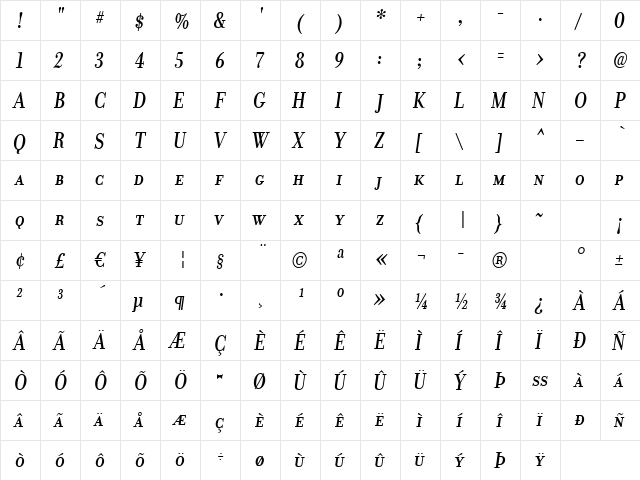
Donatora Medium SC Italic Font Preview
Donatora Medium SC Italic
Donatora Medium SC Italic Font Details
Design Context for Donatora Medium SC Typeface
Donatora Medium SC takes a measured approach to typography — its balanced proportions and neutral character make it a reliable workhorse for both digital and print work. The slanted form adds forward momentum and visual energy.
Pro Tip: Try Donatora Medium SC for annotation and caption copy alongside an upright companion — the contrast in angle creates a dynamic but ordered typographic system.